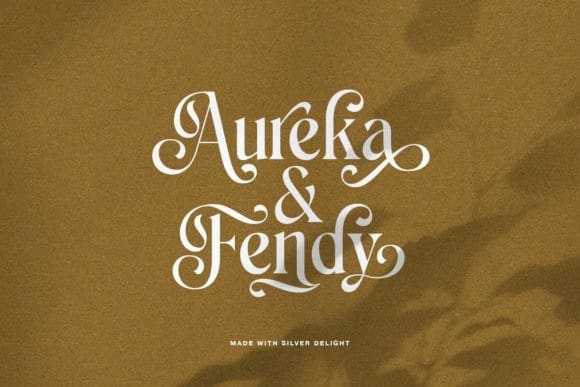
Silver Delight Font
Silver Delight Font is a modern serif. This typeface has many stylish alternates with swashes that can make your lettering/logotype more interesting. The clean and neat serif combined with the swirl swashes make this font one of a kind!